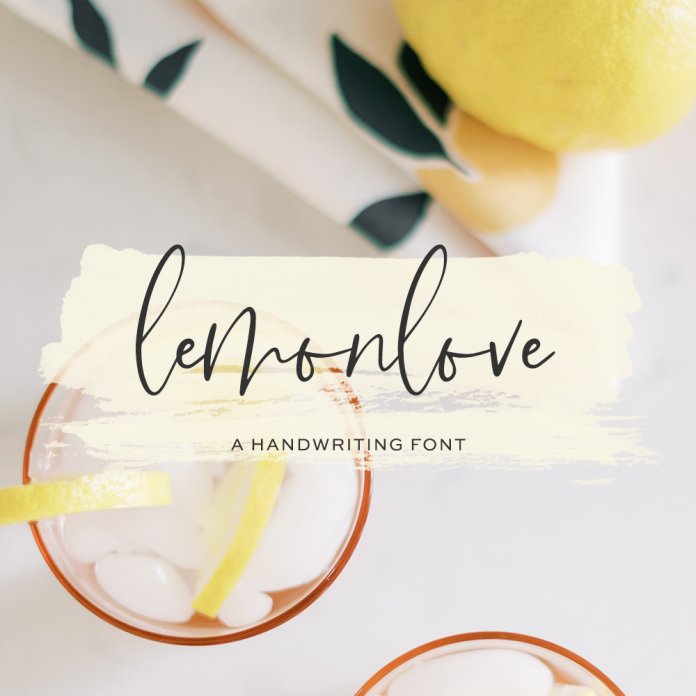
Lemonlove Script Font
Introducing Lemonlove Script, a handwritten signature style font. This stylish font features a messy, casual look and includes alternate lowercase characters to fully customize your project. Lemonlove Script is best for: - logos + branding - website design + website accents - think travel blogs, fashion blogs, & more - clean print design, like magazines + flyers - header elements that need handwritten touch - quote graphics for social media Lemonlove includes: - full upper + lowercase characters - numbers + punctuation - Western European Language Support - 26 alternate lowercase characters - PUA-encoding